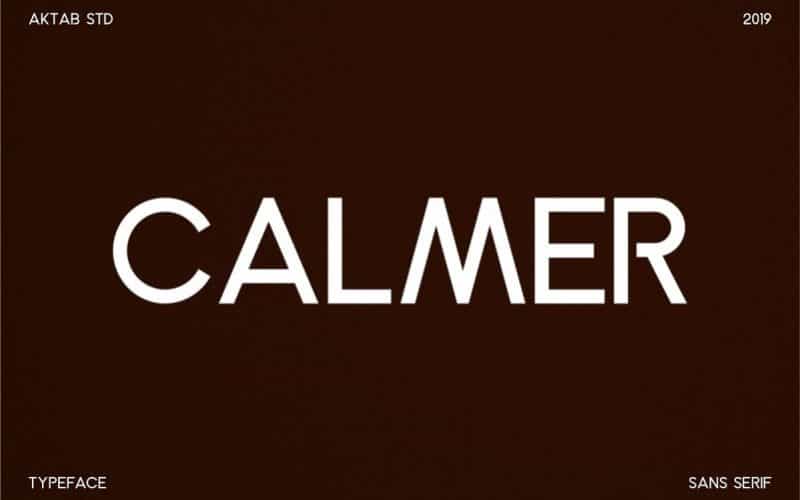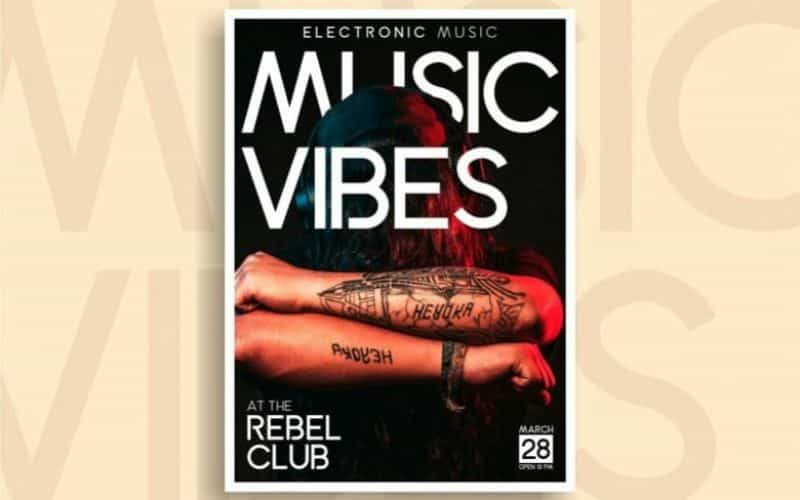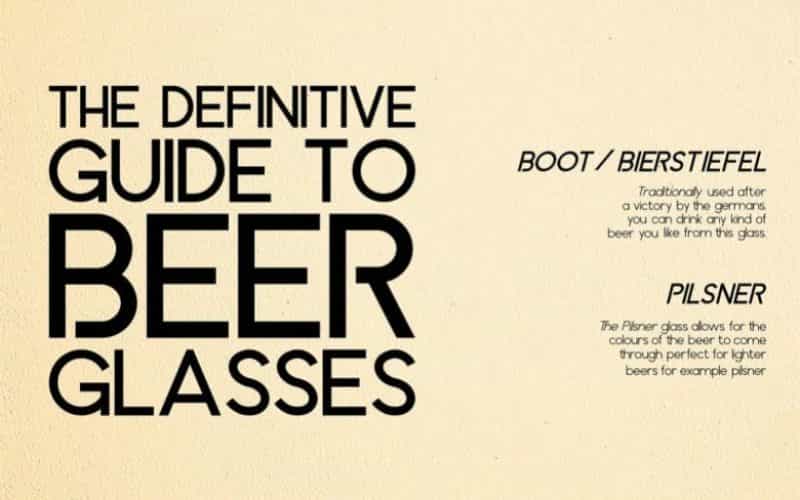
Calmer is a proportional font family and sophisticated sans serif. Inspired by branding typography, it’s sturdy uncompromising style is felt through the controlled letterforms and modern touches. A balance of hard lines and smooth curves. Each font in the family can stand on its own, dynamic and authoritative in their own right.